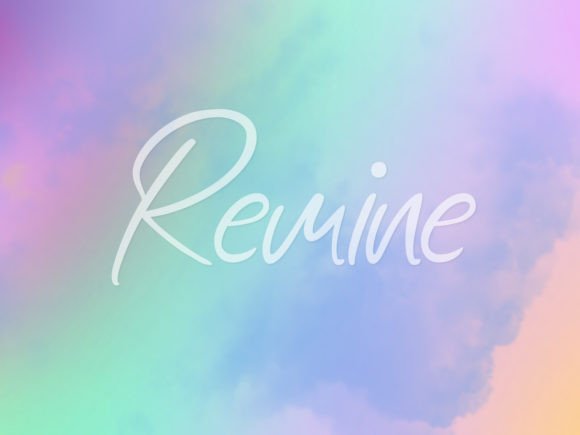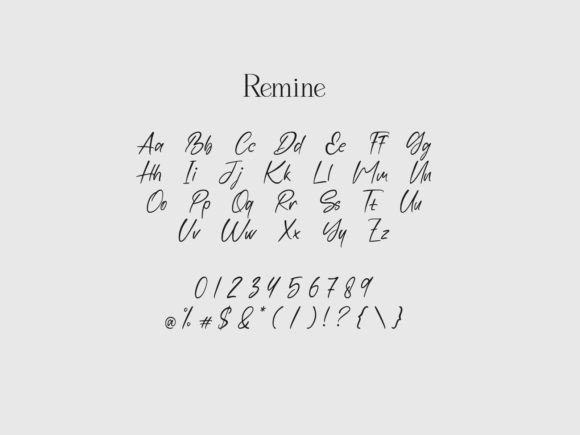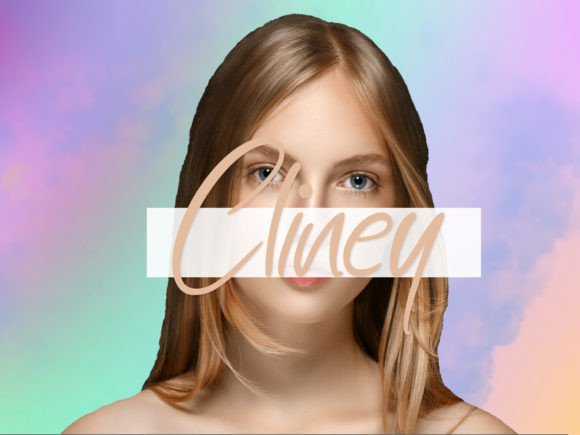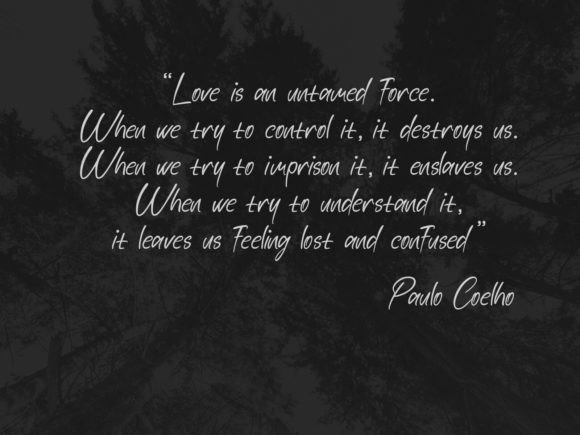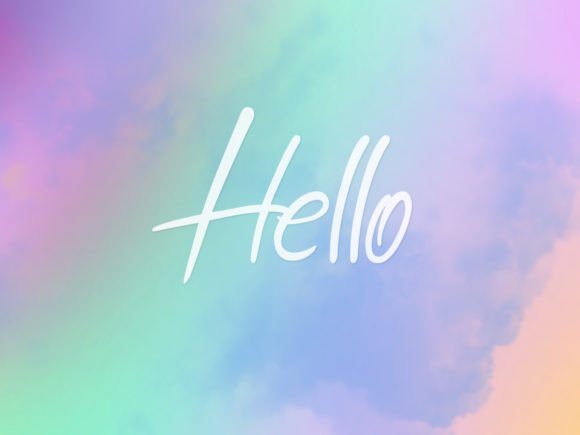
Introduction to Remine Font
Have you ever stared at a blank page, trying to bring a creative project to life, only to feel stuck by the lack of the perfect font? That’s where Remine Font comes in – a professional and modern handwriting font designed to be the ultimate design resource for your next big project.
Remine Font is more than just a pretty face; it’s a versatile and high-quality design element that can elevate your branding, web design, and print projects to new heights. Whether you’re working on a personal or commercial project, this free download is sure to become a go-to favorite. With its transparent background and modern aesthetic, Remine Font is the perfect addition to any creative endeavor.
Key Features of Remine Font
- High-quality design resource for creative projects, offering a unique and modern aesthetic.
- Transparent background, making it easy to use in various design applications and projects.
- Features a clean and minimalist design, ideal for use in logos, typography, and other creative applications.
Honest Review: Remine Font
I recently had the opportunity to work with the Remine Font, and I must say, it’s been a game-changer for my creative projects. This beautiful font is perfect for anyone looking for a high-quality design resource to elevate their work.
- ✨ High-quality design: The Remine Font is incredibly well-crafted, with smooth lines and a beautiful aesthetic.
- ✨ Versatile: The Remine Font is suitable for a wide range of creative projects, from branding and marketing materials to web design and digital art.
- ✨ Transparent background: The font’s transparent background makes it easy to use on any background, giving you complete control over the design.
- ⚠️ Limited language support: The Remine Font only supports a limited range of languages, which may be a concern for designers working on international projects.
- ⚠️ Not ideal for large-scale use: While the font is beautiful, it may not be the best choice for large-scale use, such as in body text or headlines.
Overall, I’m really impressed with the Remine Font. Its high-quality design, free download, and versatility make it a great addition to any designer’s toolkit. While there are some limitations to keep in mind, I think the benefits far outweigh the drawbacks.
Remine Font is ideal for use in creative projects such as branding, marketing materials, and digital products. Its high-quality design and transparent background make it a popular choice among designers and artists.
Tips for Getting the Most Out of Remine Font
For the best results, use Remine Font in conjunction with other design elements that complement its modern and sleek aesthetic. Experiment with different font sizes and styles to create a unique and eye-catching design.